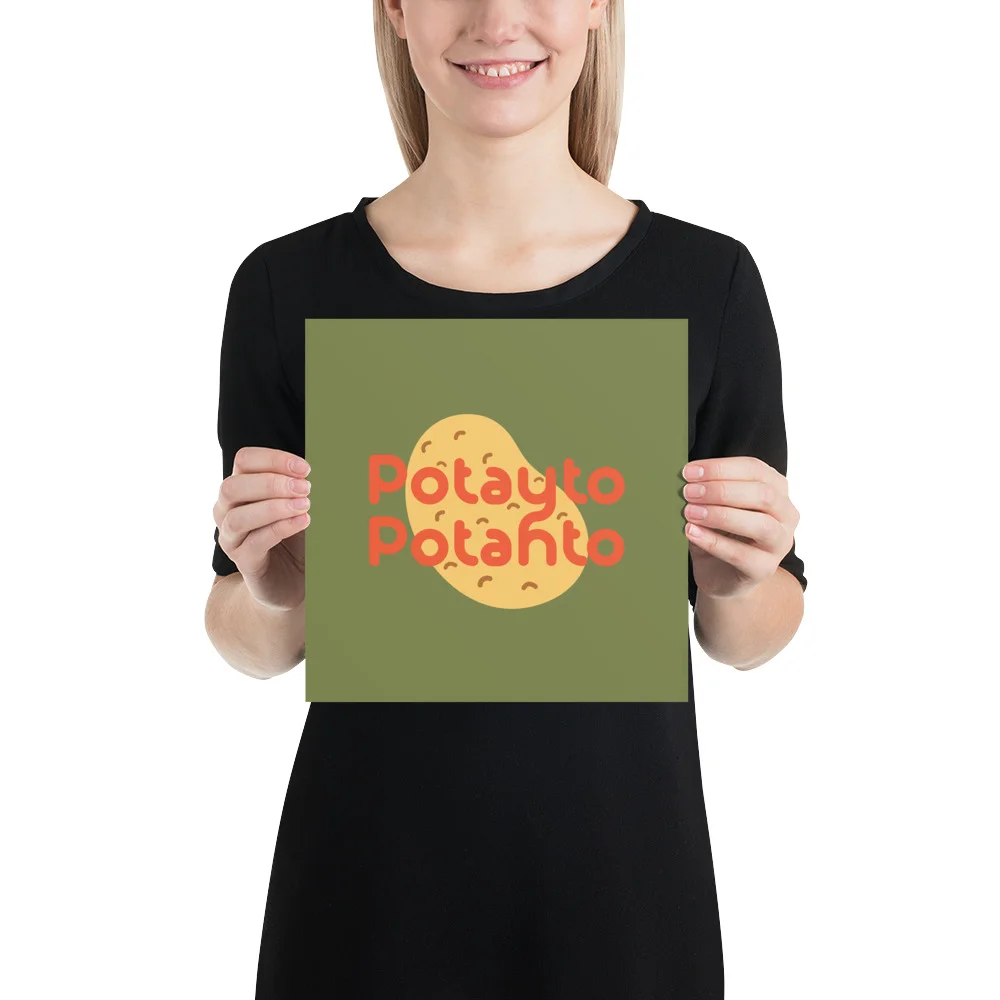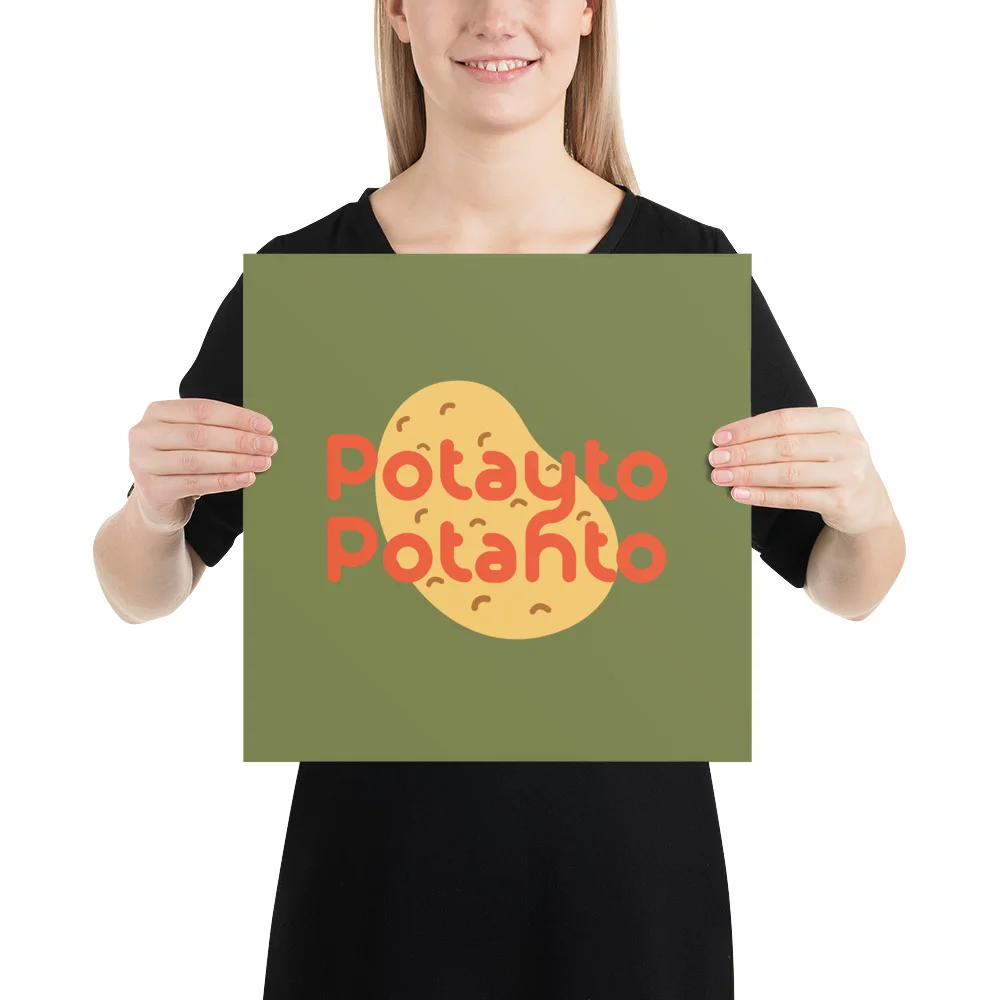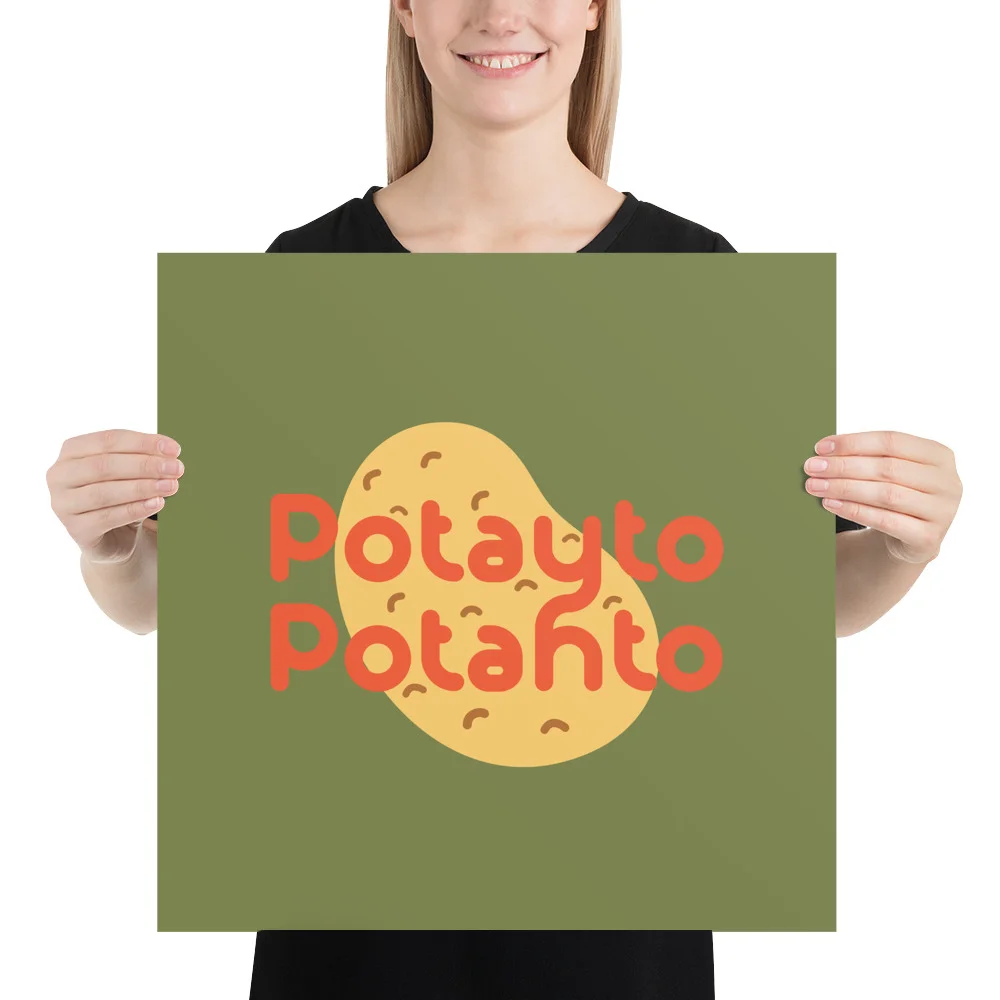
Potayto Potahto Typography Poster
We created this typography poster from a sketch which inspired our very own Alio™ typeface. The bold yet whimsical design can liven up even any dull space in your home.